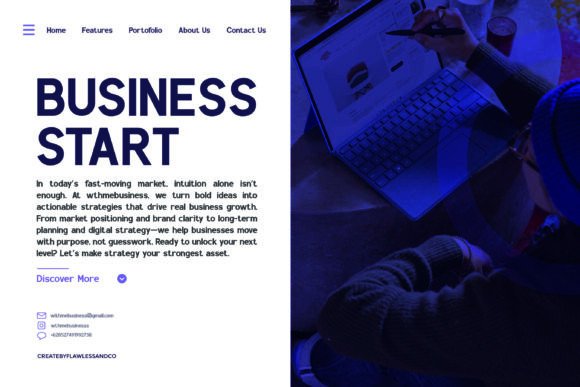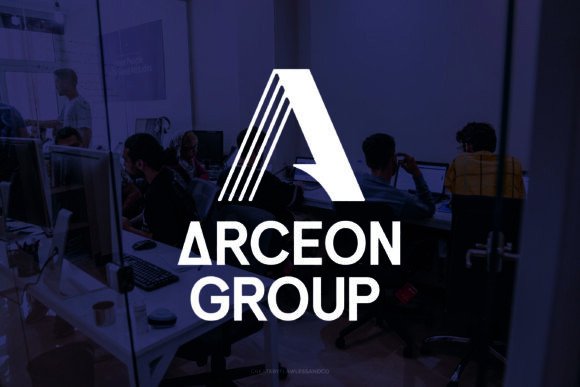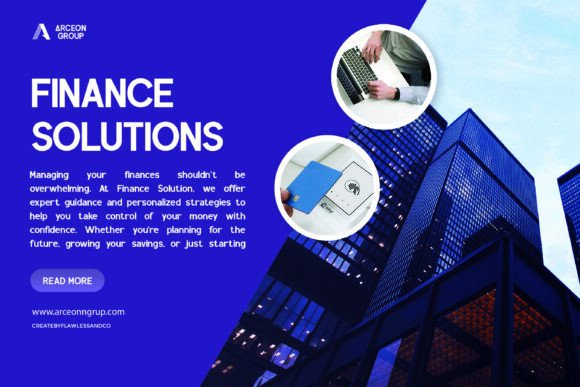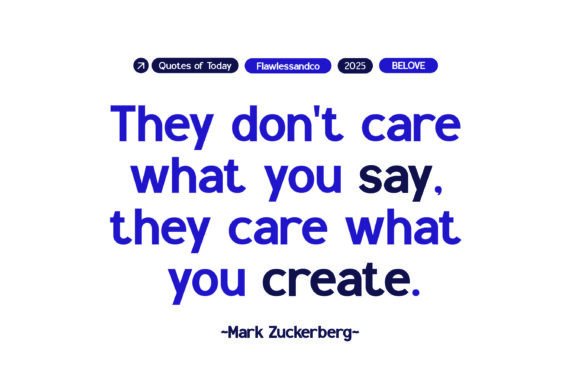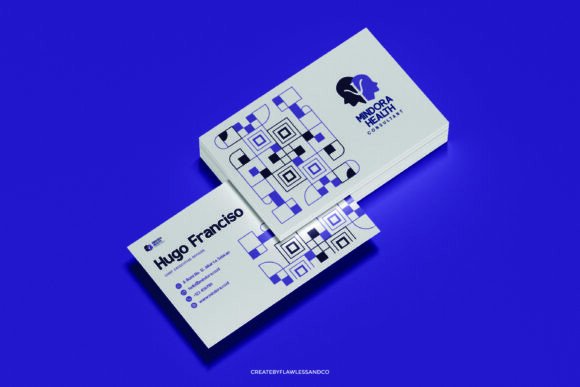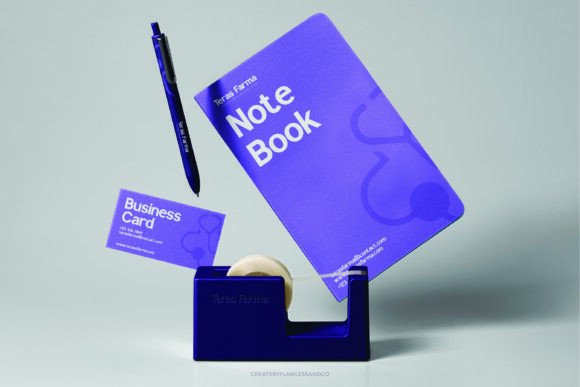
The Beloved Font: How Belove Can Elevate Your Design Game
I still remember the frustration of working on a project, hours spent perfecting every detail, only to be held back by a font that just didn’t feel right. The curves were too sharp, the lines too thin, or the overall vibe just didn’t match my vision. It was like trying to build a house on shaky ground – no matter how hard I tried, it just didn’t feel solid. That’s when I discovered Belove, a clean and modern sans serif typeface that has since become my go-to for a wide range of creative projects.
So, what makes Belove so special? Let’s dive into the good stuff first! 😊
- ✨ Clean and modern design: Belove’s smooth curves and balanced spacing make it perfect for projects that need a fresh, contemporary feel.
- ✅ Highly versatile: Whether you’re designing a book, creating marketing materials, or building a brand identity, Belove adapts seamlessly to different contexts.
- 💡 Excellent legibility: The font’s refined structure ensures that your text remains clear and easy to read, even at smaller sizes.
- 🌟 Warm and approachable: Despite its modernity, Belove has a friendly, inviting quality that makes it perfect for projects that need a human touch.
Of course, no font is perfect, and Belove has a few minor quirks to be aware of:
- 🤔 Limited italic variations: While Belove’s regular and bold weights are superb, the italic versions are somewhat limited – not a deal-breaker, but something to consider for projects that rely heavily on italic text.
- ⚠️ Glyph coverage: As with any font, some special characters or glyphs might not be included, so it’s essential to review the font’s capabilities before committing to a project.
- Experiment with OpenType features like ligatures and stylistic alternates to add personality to your text.
- Take advantage of OpenType features, such as glyphs and stylistic sets, to enhance your typography.
The Story Behind Belove: Designer Inspiration
Belove was crafted with the goal of creating a versatile, modern typeface that could serve a wide range of creative and professional needs. Inspired by the need for clarity and visual impact in design, Belove’s designer aimed to create a font that felt both functional and elegant. The result is a typeface that balances warmth with sophistication, making it suitable for everything from custom book designs to brand identities.
| Font Name | Belove Font |
| Author | Flawless And Co |
| What makes Belove suitable for professional projects? | Belove’s clean design, balanced spacing, and excellent legibility make it perfect for professional applications where clarity and visual impact are crucial. |
| Can I use Belove for both digital and print projects? | Absolutely! Belove’s versatility means it can be used across a wide range of projects, from digital marketing materials to print books and editorial layouts. |
| Is Belove easy to read? | Yes, Belove is designed with readability in mind. Its refined structure ensures that text remains clear and easy to read, even at smaller sizes. |
| Does Belove support OpenType features? | Yes, Belove supports various OpenType features, including ligatures, stylistic alternates, and glyphs, which can enhance your typography and add personality to your text. |
In conclusion, Belove is a powerful addition to any designer’s toolkit. Its blend of modernity, versatility, and elegance makes it an excellent choice for a wide range of projects. Whether you’re building a personal brand, designing marketing materials, or creating a creative product, Belove offers the flexibility and sophistication you need to make your work stand out.